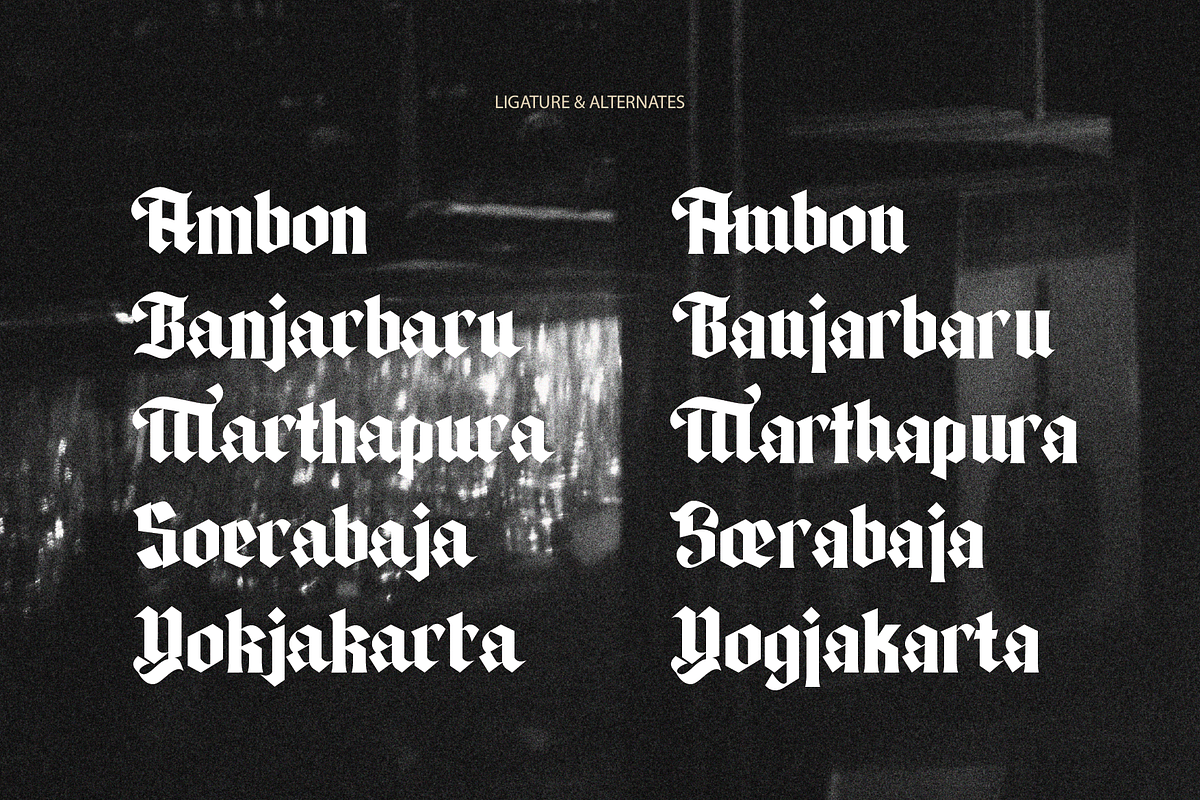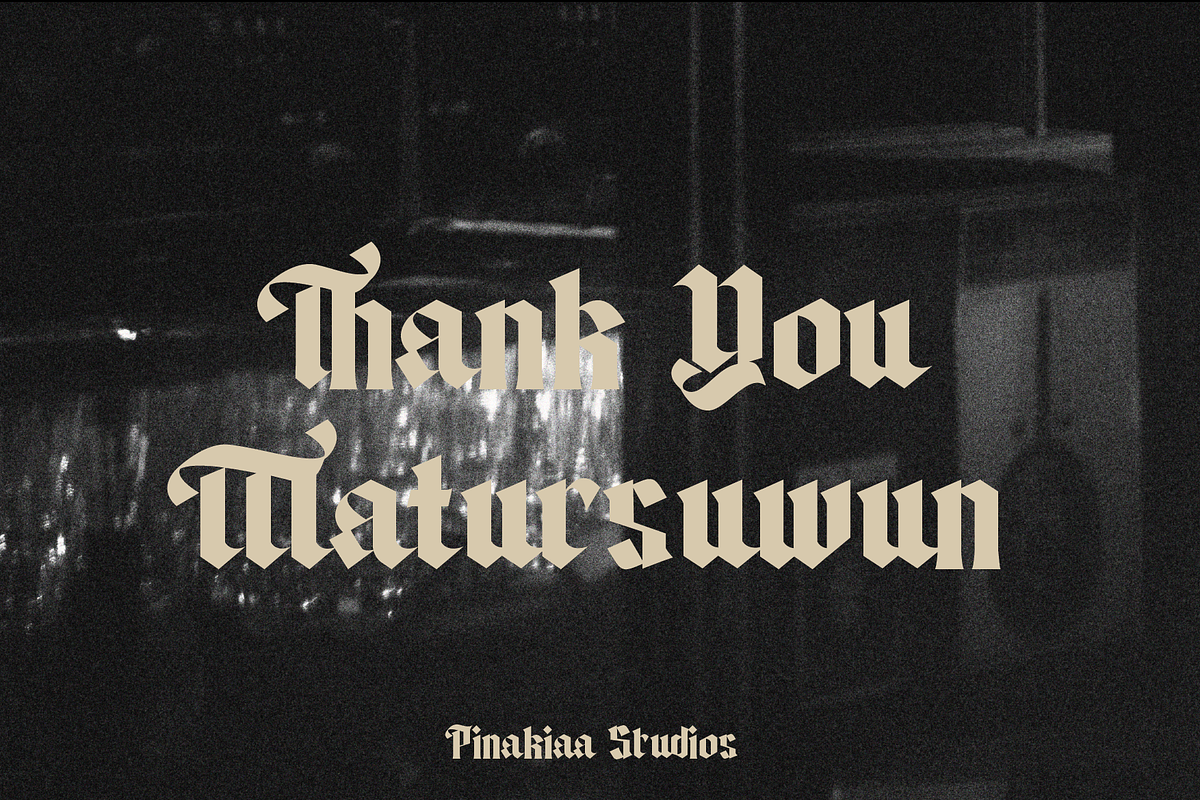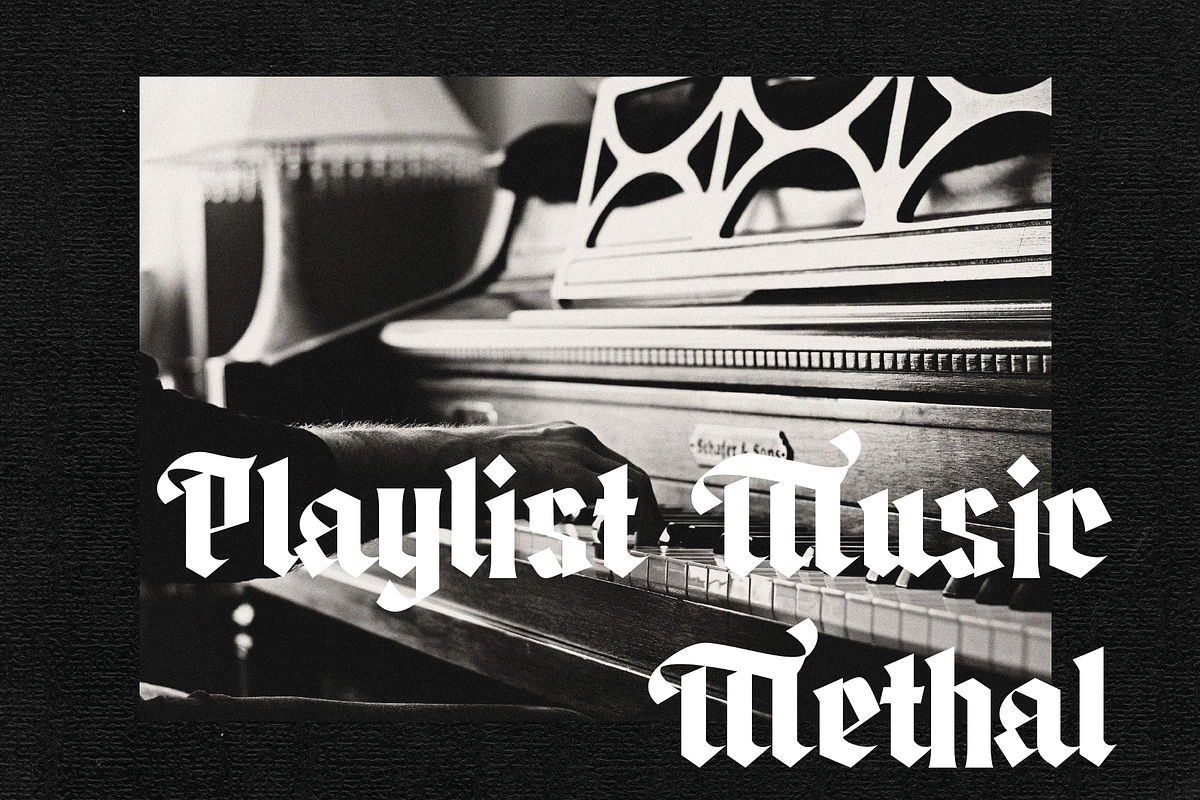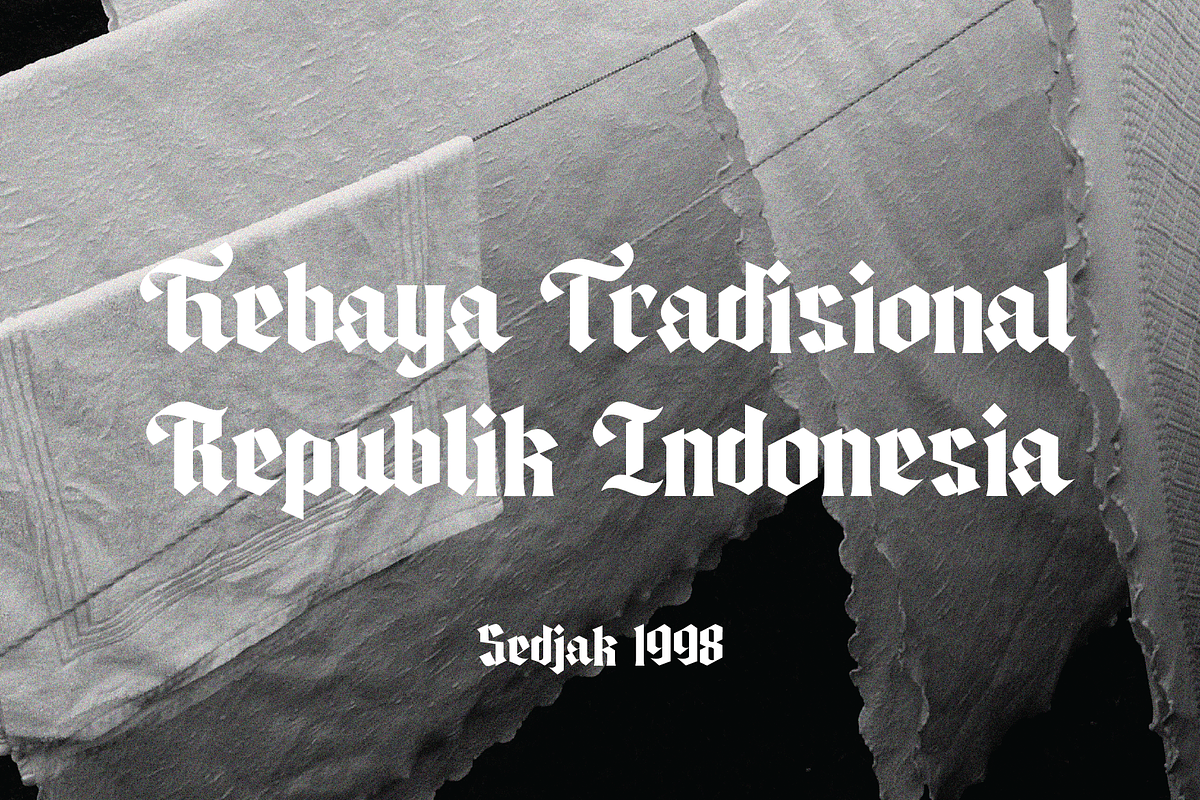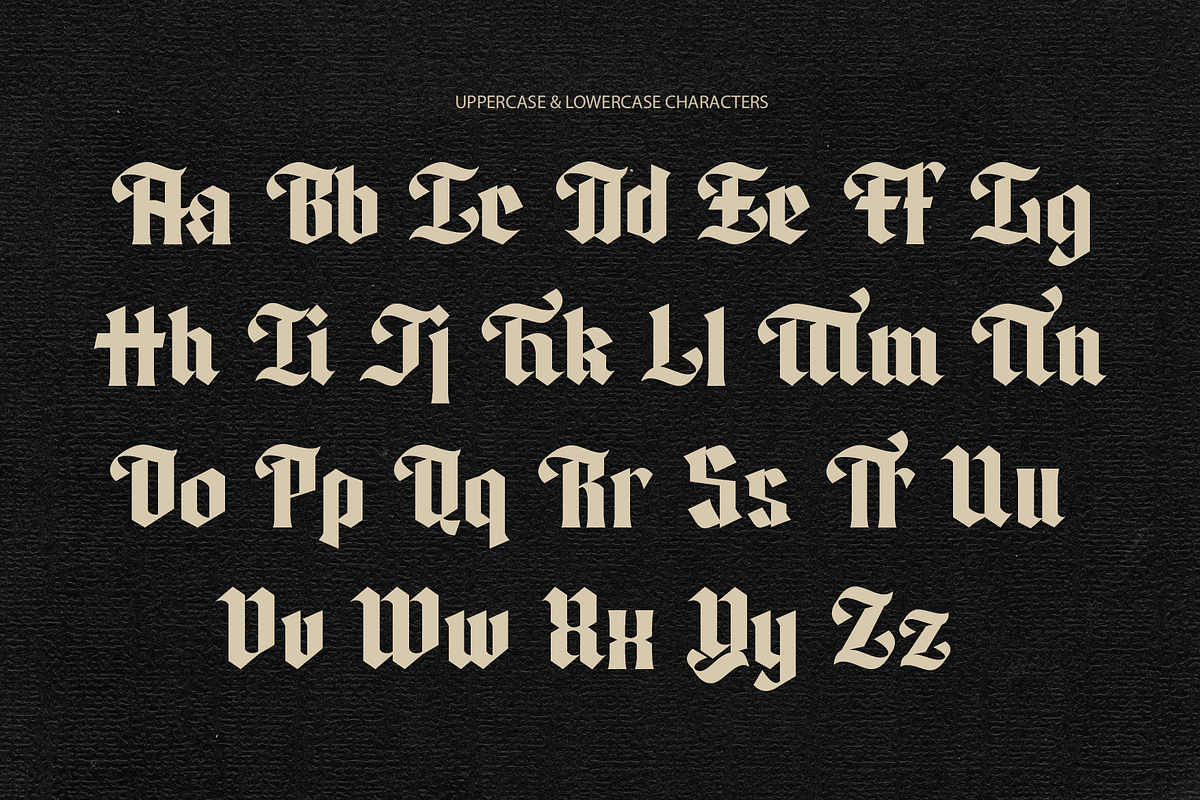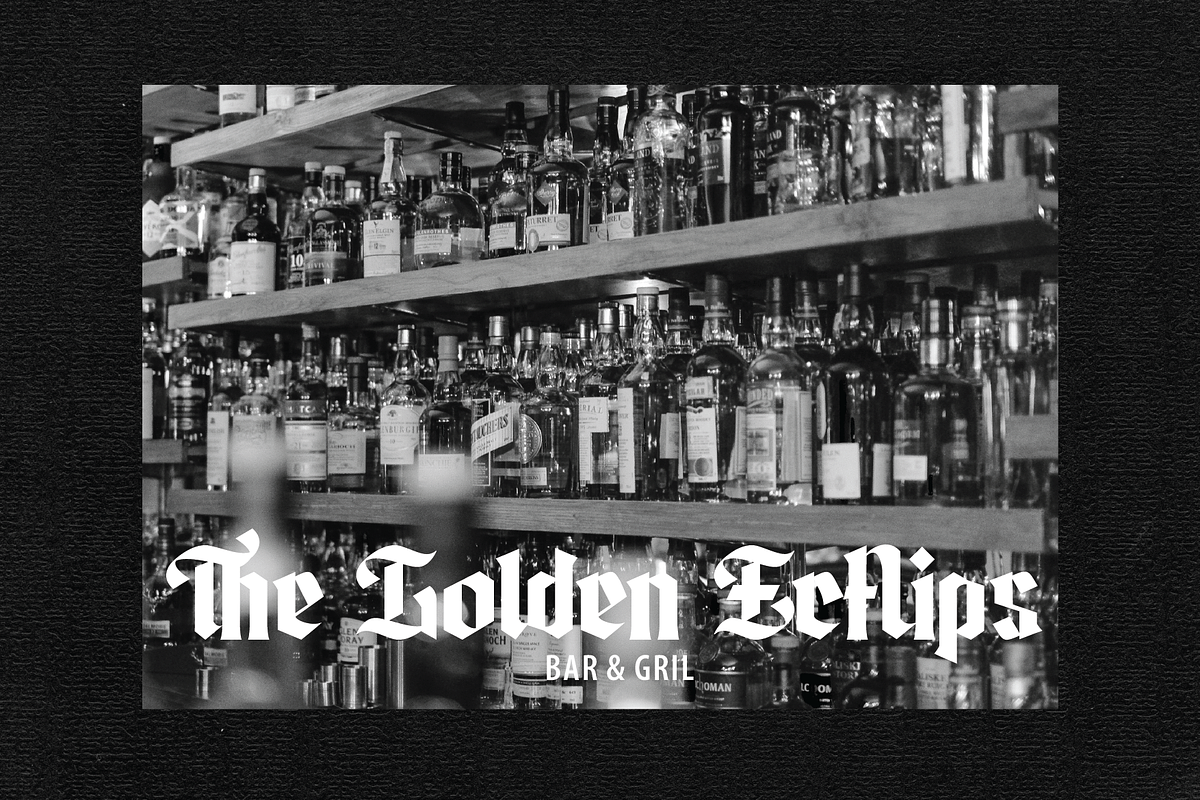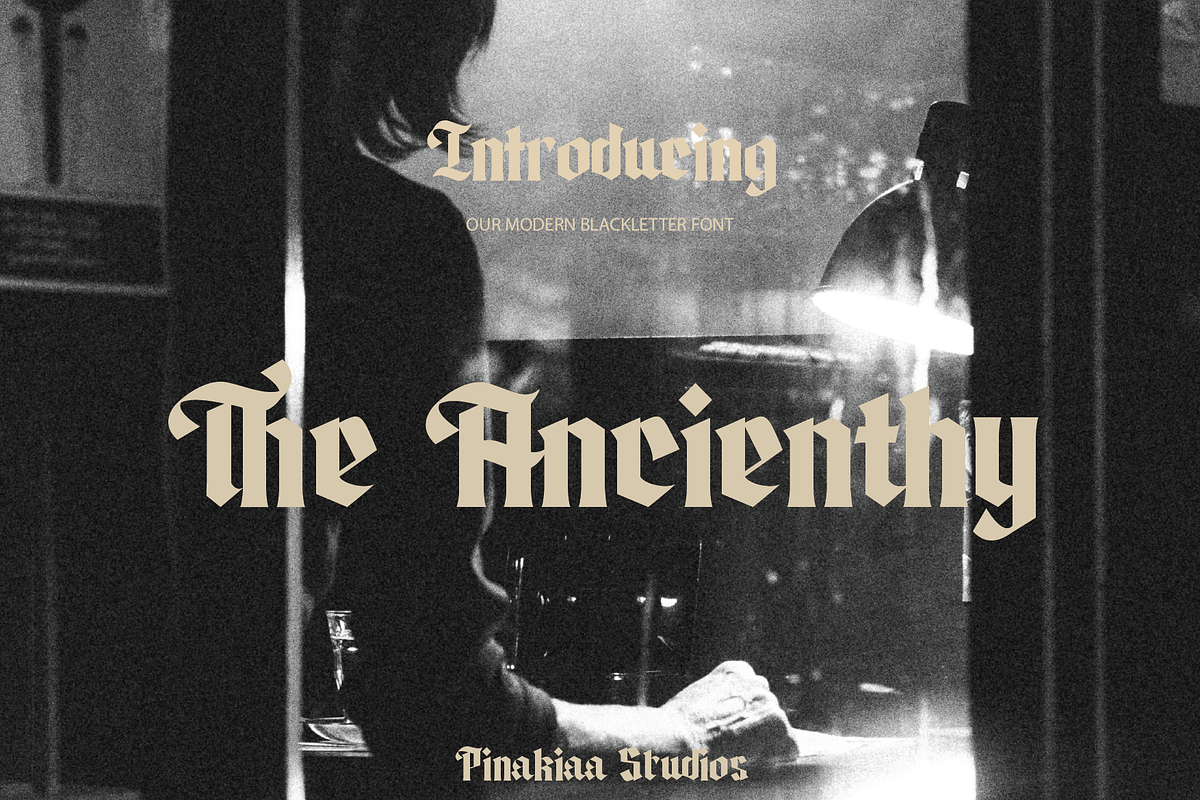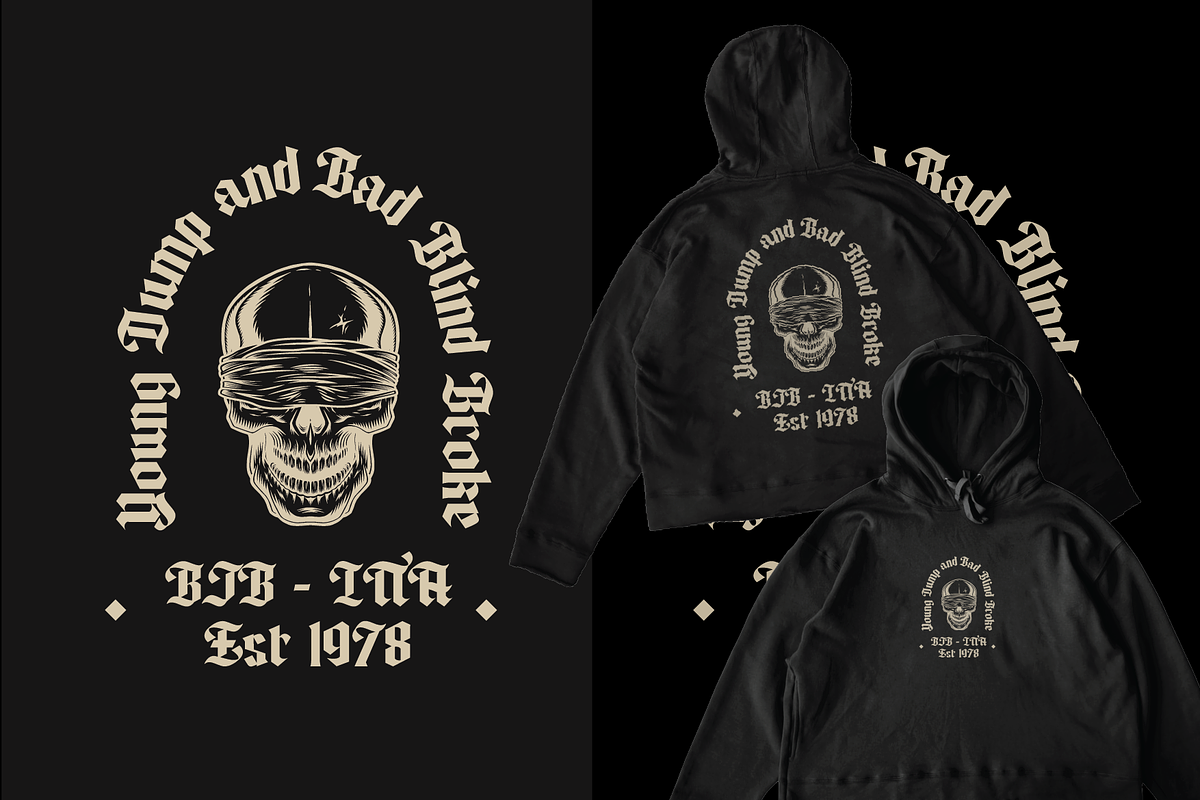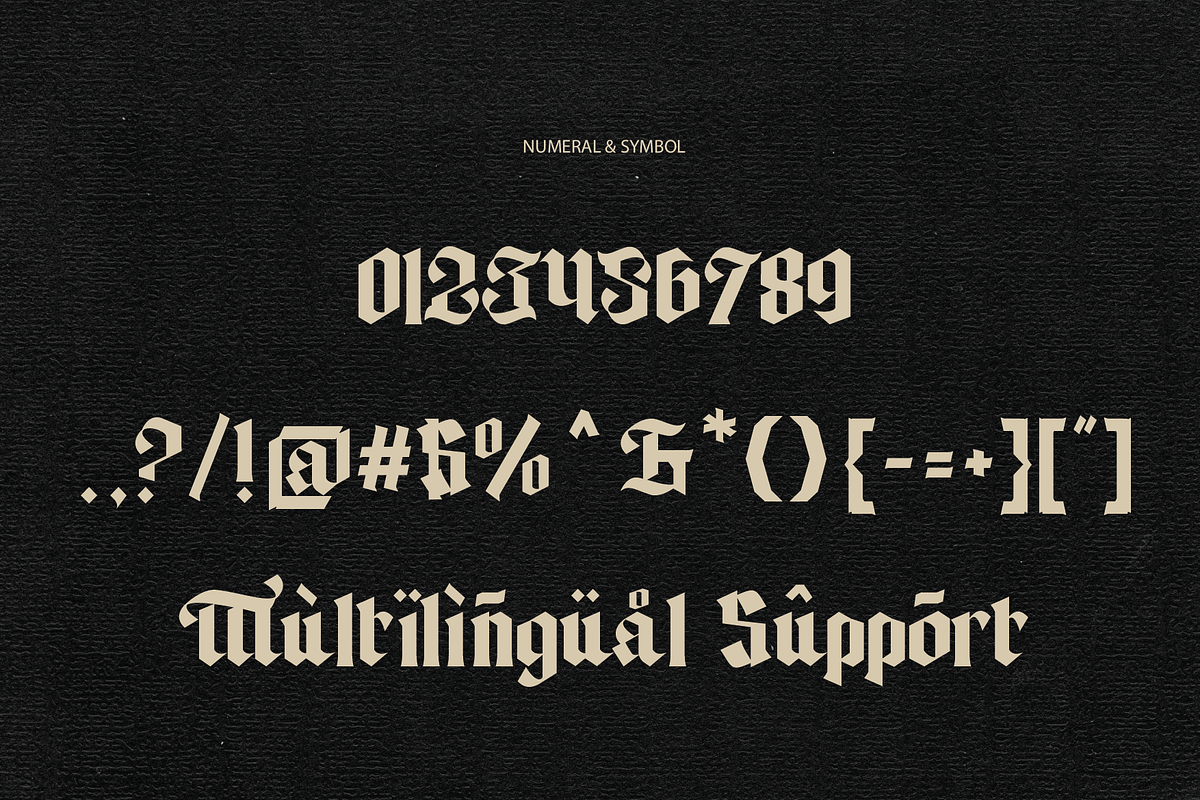
The Ancienthy - Modern Blackletter
Introducing Thrr Ancienty - Modern Blackletter Font
Includes uppercase letters, lowercase, ALternates, ligature, numerals, and support multilingual. Get it for poster, web design, branding, illustrations, badges, shirt design and some work.